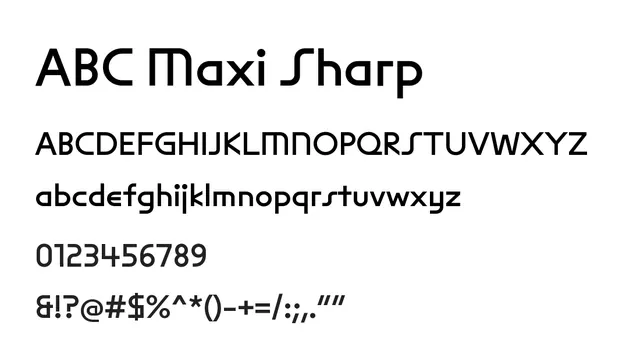
A sharper variant of geometric sans with angular terminals and precise geometric construction for technical applications.
Best used for headlines and UI elements where precision and sharpness convey sophistication. The angular forms work particularly well in design, tech, and architectural contexts.
Complements IBM Plex Mono for code snippets or Inter for secondary body text.